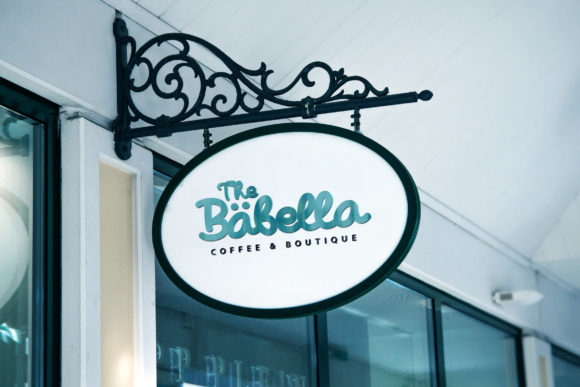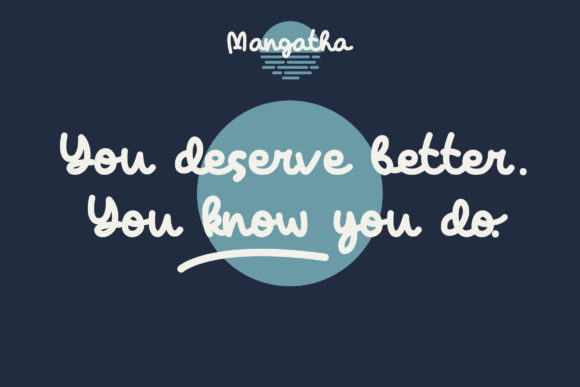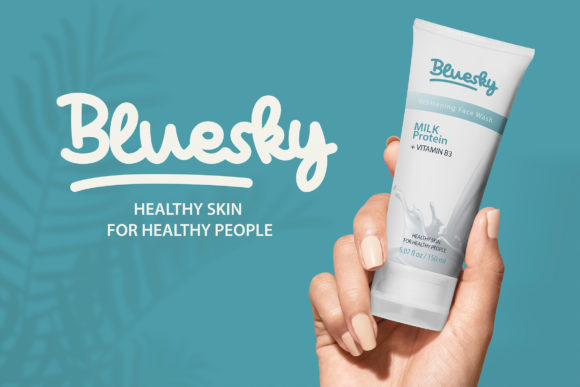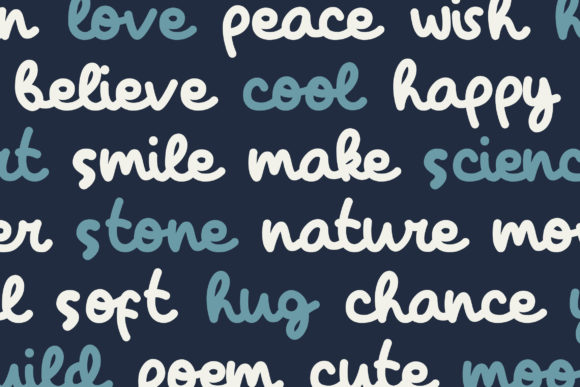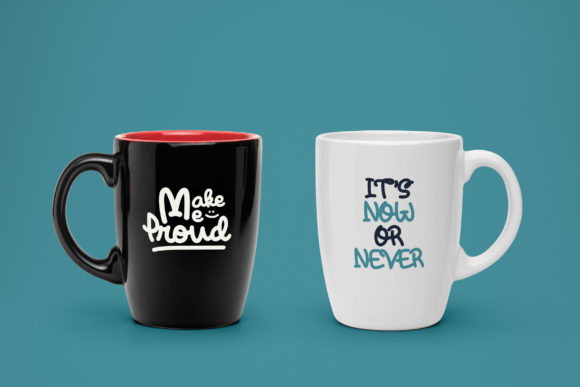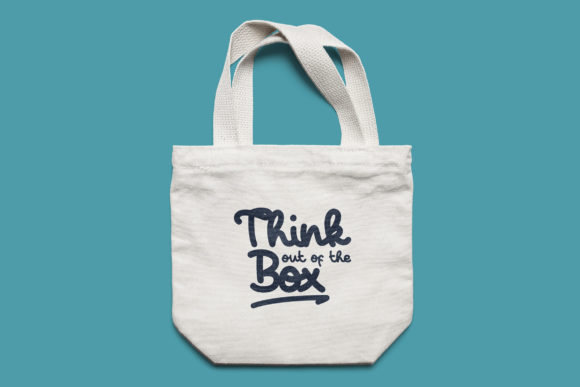
Introduction to Mangatha Font Font
Fonts play a crucial role in design, and the Mangatha Font font is a typeface that brings both character and versatility to any project. Whether you’re working on a branding project, a website, or a print design, the Mangatha Font font offers a unique style that can elevate your work.
Mangatha is a delicate handwritten script font.
Itβs a great font for fashion, apparel projects, signature, album cover, logo, branding, magazine, social media, & advertisements, and so much more This font is PUA encoded which means you can access all of the glyphs and swashes with ease.
Key Features of Mangatha Font Font
Why Choose Mangatha Font Font?
The Mangatha Font font is more than just a typeface β it’s a design tool that helps you communicate your message with style and clarity. Its unique character set and versatile design make it suitable for a wide range of applications, from elegant invitations to bold headlines.
With its carefully crafted letterforms and balanced proportions, the Mangatha Font font ensures readability and visual appeal across all mediums.
What makes Mangatha Font font special?
The Mangatha Font font stands out with its unique design, exceptional readability, and versatility across various design applications.